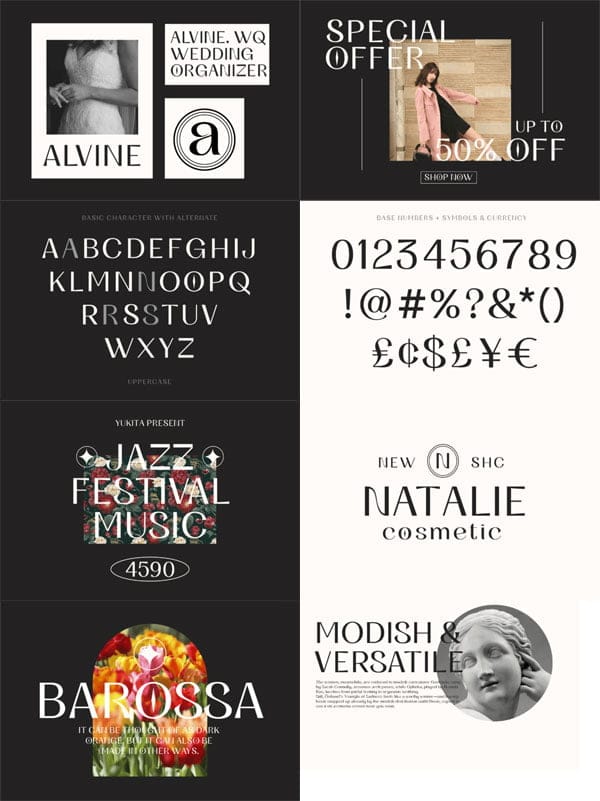
Creativefabrica – Galleds Stars Font
Galleds Stars Font
Galleds Stars Display Typeface is a single font with a minimalistic but standout style for any work from movie titles, music album covers, magazines, beauty ads, and even wedding invitations. Minimalist type design has been a success for professional designers all over the world. You Can Also Download Roopus Signature Font.
Galleds Stars Font